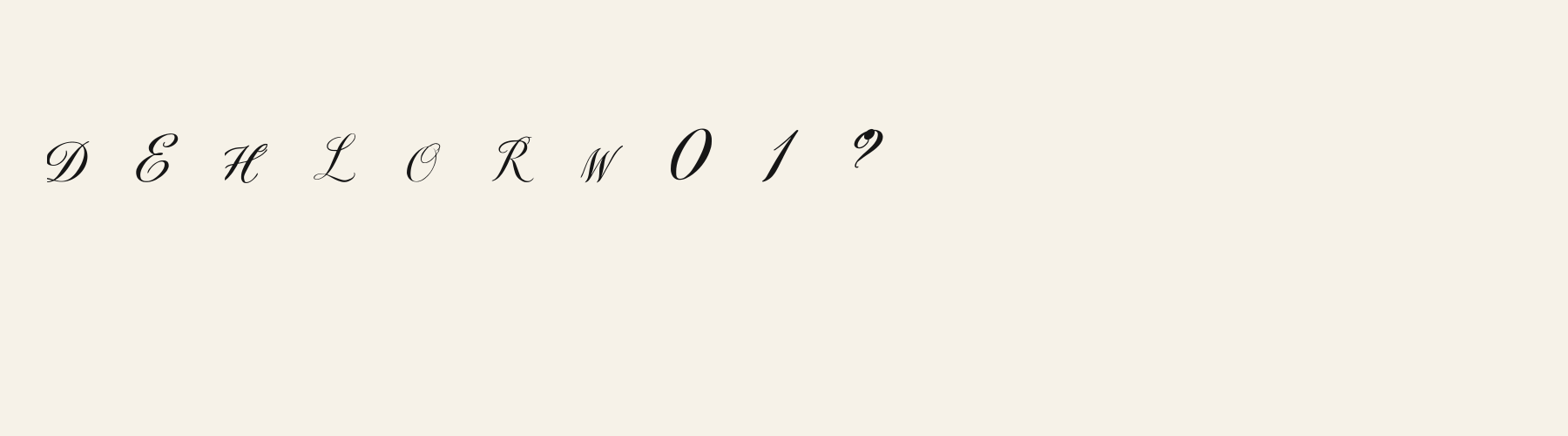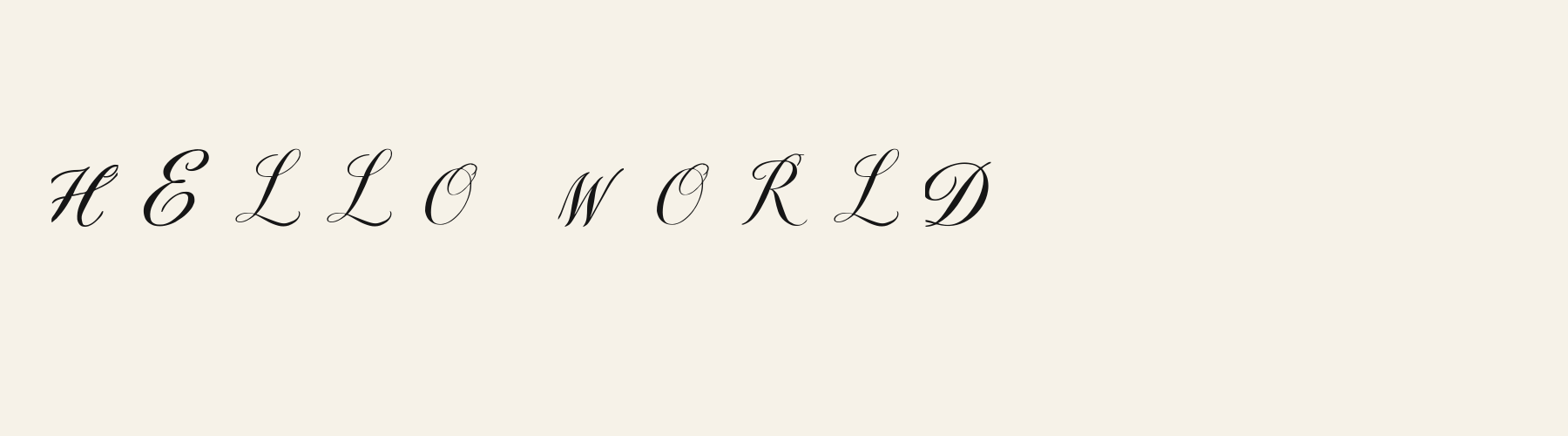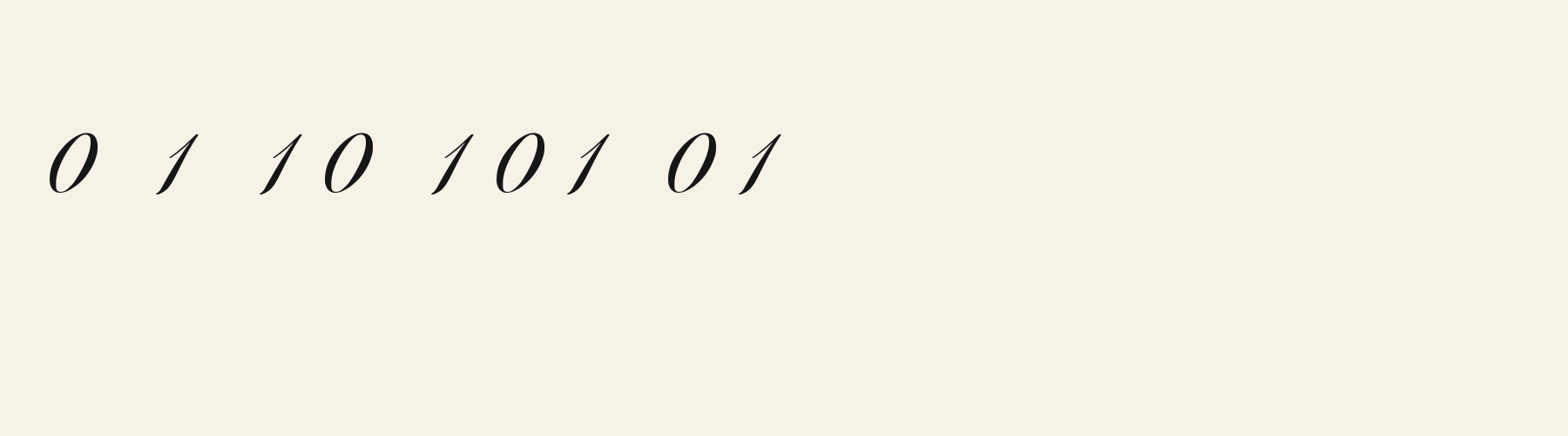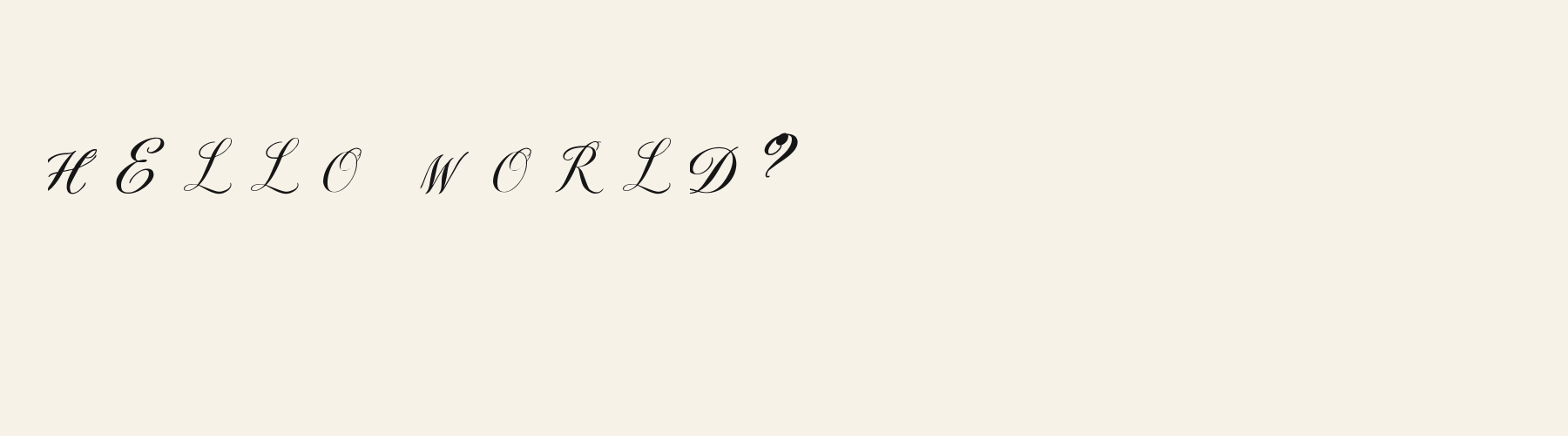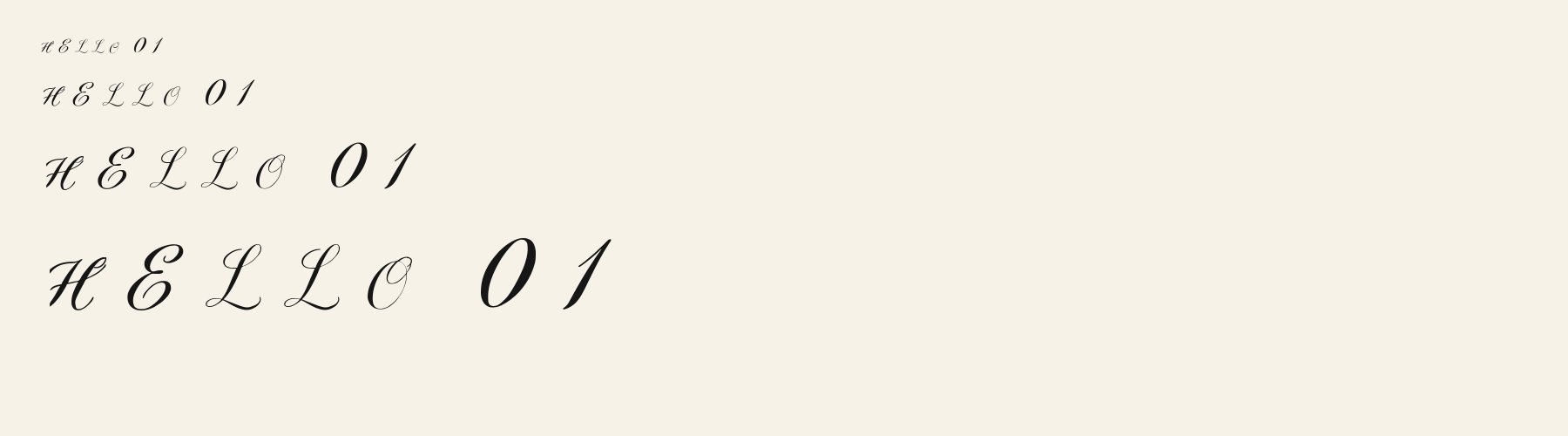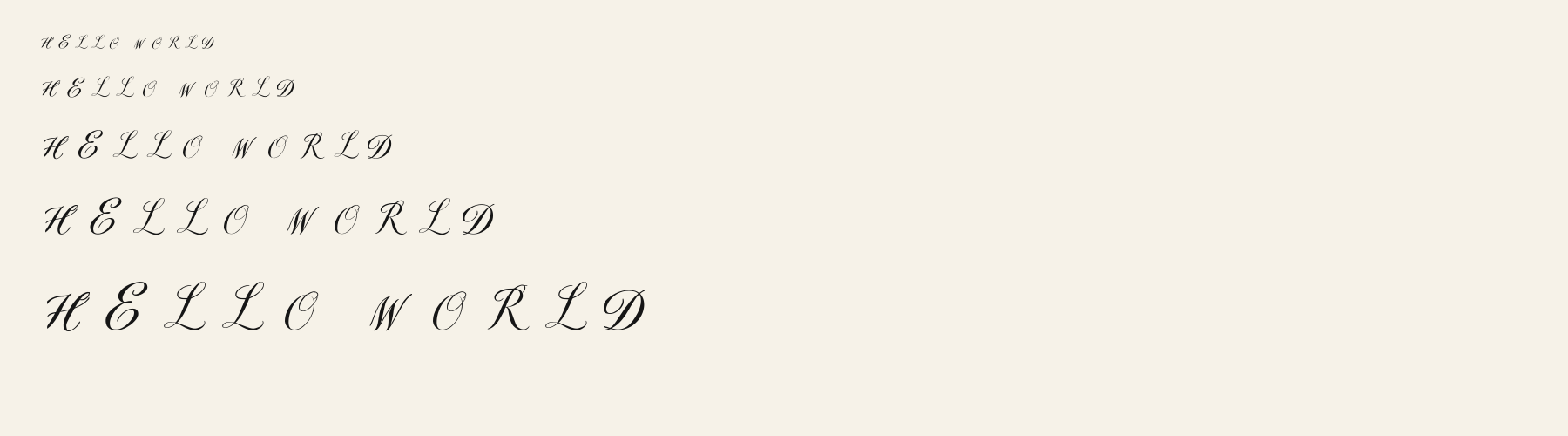
Script Copperplate Loop Swept Hairline Capitals Font
Script Copperplate Loop combines dark, slanted downstrokes with exceptionally fine curves that extend beyond the main letter bodies.
Swept Hairline Capitals Letterforms
Script Copperplate Loop combines dark, slanted downstrokes with exceptionally fine curves that extend beyond the main letter bodies. The L starts with a slender upper oval and finishes in a long baseline sweep. The O pairs a tilted oval outline with a small crossing curl near its upper edge, while the R sends its diagonal leg outward into a fine upturned finish. These capitals stand separately in the supplied wording, leaving their flourishes visible between letters. The contrast between substantial strokes and delicate extensions gives short headings a formal, poised rhythm with plenty of movement.
Check the L sweeps, O curls, and gaps around R in your actual wording, especially where flourishes approach neighboring letters. The supplied specimens show Latin capitals; inspect lowercase separately, and verify accented Latin or other scripts through their own previews and character checks.
Try this face for a brief heading, with a restrained sans serif handling dates, descriptions, and labels. Its thin crossing curves and extended capital feet benefit from supporting text with simpler outlines and a quieter rhythm.
Script Copperplate Loop: letterforms and layout
L
Compare smaller and larger previews to inspect the fine curls around O and the sweeping feet of L. The larger setting gives these thin strokes more visual presence; check whether they remain distinct in the intended output.
In this uppercase phrase, Script Copperplate Loop has finer entry strokes, longer L feet, and delicate crossing curls around O. Choose it when those extended hairlines should shape the heading.
Gala Script gives the same uppercase phrase heavier curls and shorter L feet. Its O has a dark inward stroke within the outer contour, creating a denser appearance suited to a more compact decorative heading.
Script Copperplate Loop font in use
WITH LOVE
Card or invitation. Sweeping capital strokes and fine upper curls give a short invitation heading a formal, personal character. ROSE OIL
Product label. The dark downstrokes anchor a brief product name while delicate oval curls add detail around the capitals. LOVE LETTERS
Book or album cover. Long L feet and slanted capitals bring flowing movement to a cover title with generous surrounding space.
The scenes are illustrations drawn on this page with Script Copperplate Loop itself, not client work.
About Script Copperplate Loop
The x-height is a compact 45.8% of the cap height, below the 48.5% median for script fonts, lower than 42 of the 53 other script fonts. Ascenders on b, d, h, k and l line up with the capitals (102% of their height), and descenders on g, j, p, q and y drop 47.2% of the cap height below the baseline, shallower than 37 of the 53 other script fonts. It sets wide: an average lowercase letter, spacing included, is 75% as wide as the capitals are tall (an average capital, 94.2%), 17% more than the median for script fonts, so the same words take a longer line. The o is wider than it is tall, 1.18 to 1, and T is the widest capital, at 1.02 times the width of H. The O stops 8% of the cap height short of H and stands 6.6% above the baseline.
The letters lean about 21° to the right. Ink covers 13.4% of each lowercase letter's box (its advance width by the cap height), lighter than 49 of the 53 other script fonts.
Its 95 characters include 52 Latin letters, plus 43 figures, punctuation marks and symbols; there are no accented Latin letters beyond A to Z. The word space measures 51.1% of the cap height, and the blank space either side of a lowercase letter takes up 4.3% of its width. The font carries no kerning, so spacing comes from each letter’s own side bearings. The figures have different widths, so columns of numbers set in Script Copperplate Loop will not line up exactly.
Includes all 95 printable Basic Latin characters, 95 characters in total.
Verified language coverage: English, Indonesian, Malay, Swahili, Zulu
- Structure
- Connected slanted forms with looped ascenders and restrained flourishes
- High-contrast downstrokes and traceable hairlines
- Invitations, signatures and luxury headings
- What fonts pair well with Script Copperplate Loop?
- Chamfer Counter Sans (sans serif), Notch Terminal Sans (sans serif) and Candy Heart Slab (serif) are drawn on a different letter structure, so Script Copperplate Loop can carry the headings while one of them sets the text. Each has its own page with a type tester for trying the pair.
- Which fonts are similar to Script Copperplate Loop?
- In the same script style: Bouquet Script (heavier strokes); Sailor Script (heavier strokes, 10% narrower); Ember Script (heavier strokes, 15% narrower).